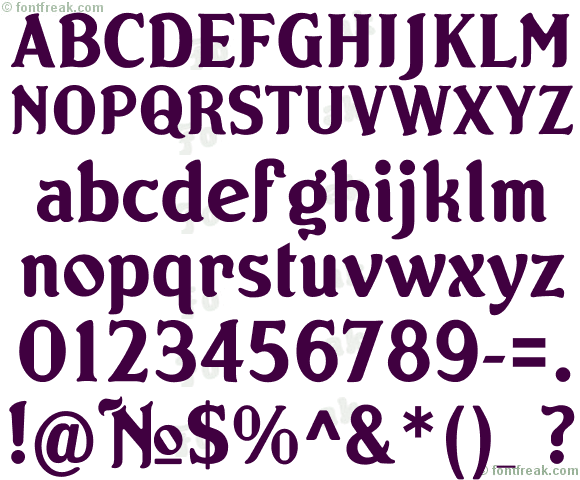
Norton
About Norton
Norton is a distinctive display font designed by Keith Bates, perfect for projects that aim to capture attention and convey a sense of personality. As a freeware typeface, it is accessible to everyone, making it a favorite among graphic designers, small business owners, and content creators alike. The font is inspired by the iconic five characters of a famous motorcycle logo, giving it a unique, bold character that stands out in any setting.
Visually, Norton features a striking combination of thick and thin strokes, creating a dynamic contrast that draws the eye. The characters exhibit a slightly condensed form with generous spacing, contributing to excellent readability while maintaining a playful, informal vibe. Its decorative elements add flair without compromising functionality, making it ideal for high-impact designs.
Norton is particularly well-suited for a variety of creative applications. It works wonderfully on restaurant menus, where its boldness can highlight key dishes and create an inviting atmosphere. Additionally, it shines in movie posters, lending a dramatic flair that captures the essence of the film. The font is also an excellent choice for promotional materials, such as event flyers or product packaging, where grabbing attention is essential. Finally, it can be a great fit for personal projects like custom invitations or social media graphics, allowing for a unique touch that reflects individual style.
What sets the Norton font apart is its perfect blend of boldness and charm, making it a versatile choice for any creative endeavor. Whether you're looking to create an eye-catching advertisement or a memorable logo, the Norton font free download is an excellent resource to enhance your design toolkit. Its unique personality ensures that your projects will stand out in a crowded visual landscape.